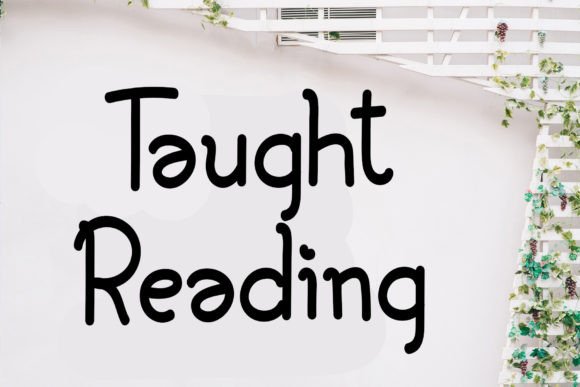
Introducing the captivating Taught Reading Font, a typographic masterpiece designed to capture your imagination and elevate your creative endeavors. Step into a world of visual brilliance and unleash the power of expression with this captivating font.
Born from the creative vision of BabyArt, Taught Reading Font is a testament to the beauty of simplicity. Its clean lines, soft curves, and elegant contours evoke a sense of sophistication and timeless charm. This sans serif font exudes confidence and authority, making it the perfect choice for branding projects that demand attention.
Whether you're a savvy entrepreneur crafting a powerful logo, a budding designer creating captivating posters, or a blogger seeking to create visually stunning content, the Taught Reading Font is your perfect companion. Its versatility knows no bounds, adapting seamlessly to any project, from sleek business cards to eye-catching social media posts.
Experience the joy of effortlessly conveying your message with a font meticulously crafted for impact. Taught Reading Font's crisp strokes and clear structure ensure readability and clarity, ensuring your words resonate with your audience. Let this font be your creative ally, transforming your projects into visual symphonies that command attention.
Immerse yourself in a world of sophistication and style with Taught Reading Font. Let your imagination soar, and your creativity flourish as you craft designs that captivate and inspire. Embrace the elegance of Taught Reading Font today, and elevate your projects to new heights of visual excellence.